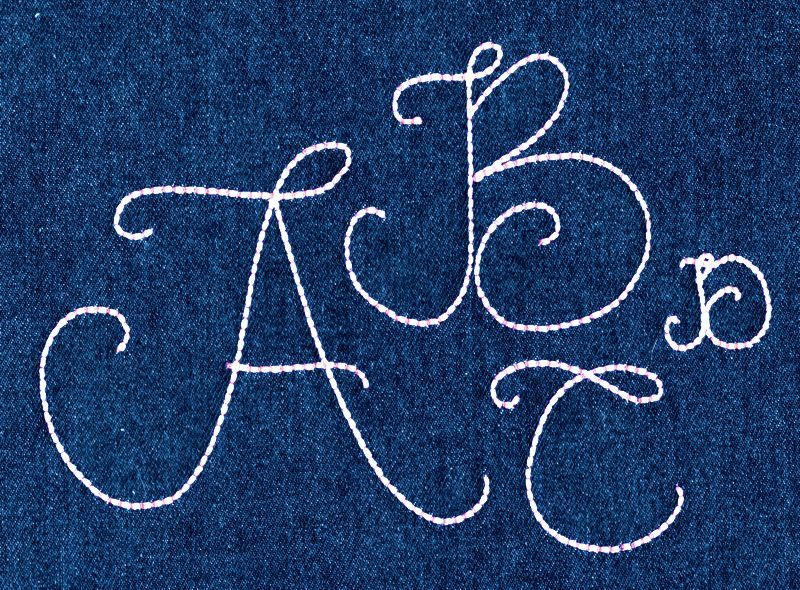
291 Fancy Pen Floss Font
Fancy Pen Floss Font comes in 0.75", 1", 2", 3", 4", and 5" heights. Includes uppercase, lowercase, numbers and four punctuation marks all stitched in Floss Stitch (described in FAQ#14). Set height is based on the capital "A" and all other characters are sized proportionally. Many of the capital letters are wider than they are tall and some in the 3" set exceed 4x4 hoop limitations; and some letters in the 4" and 5" sets exceed standard 5x7 hoop limitations.